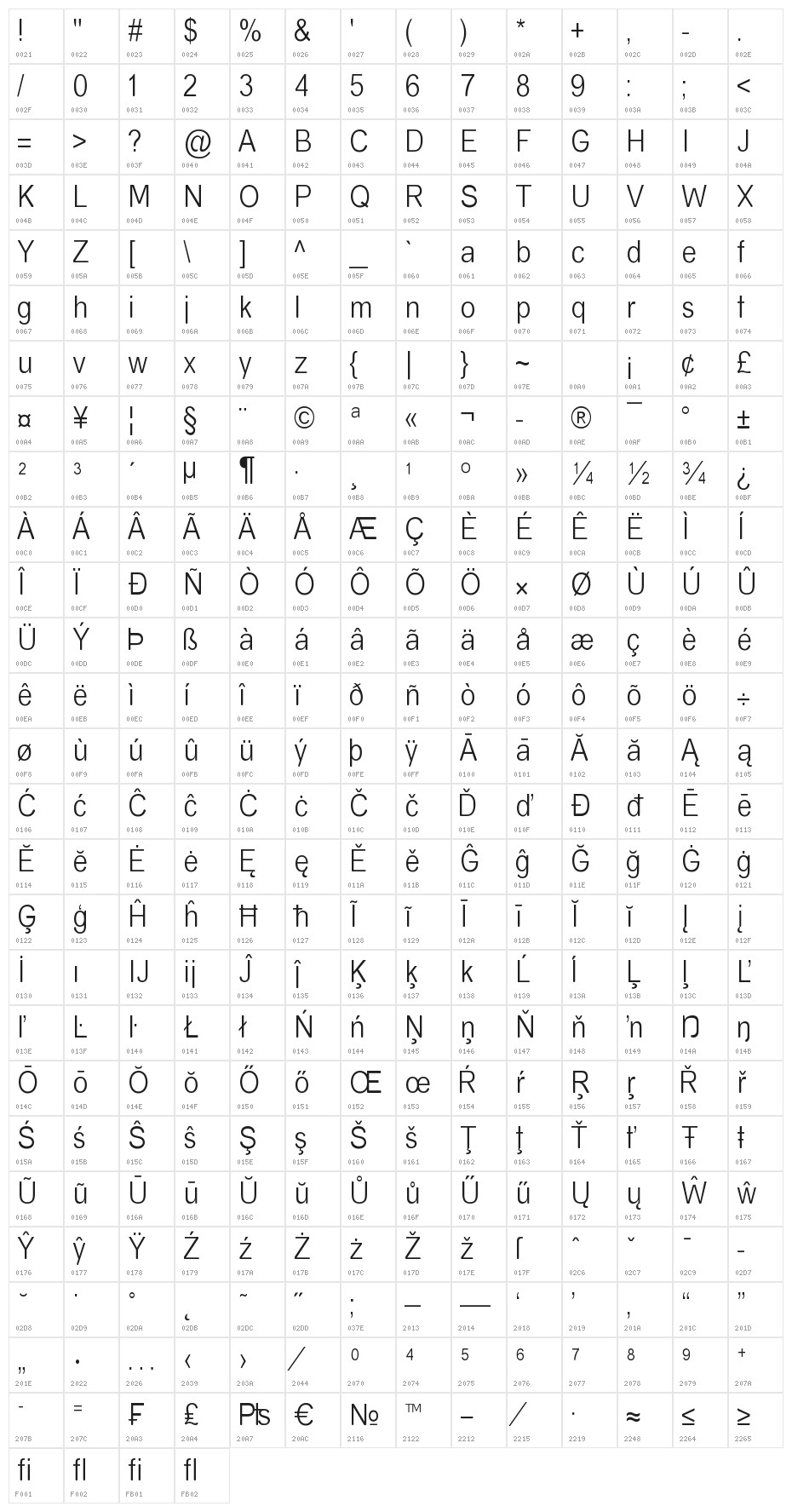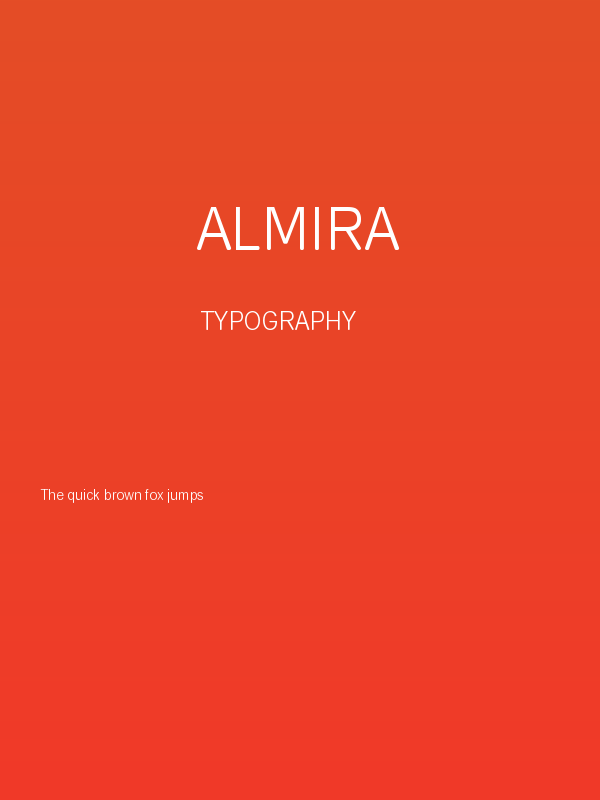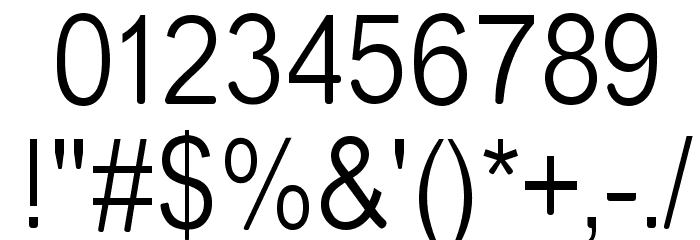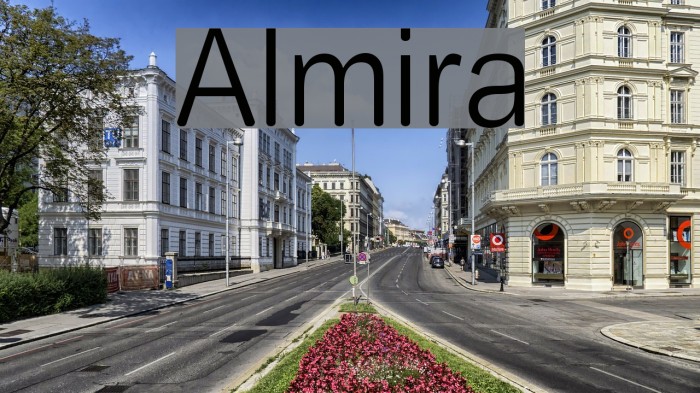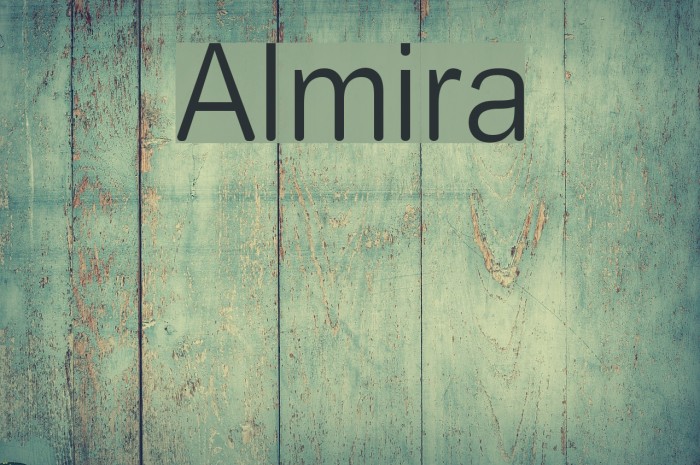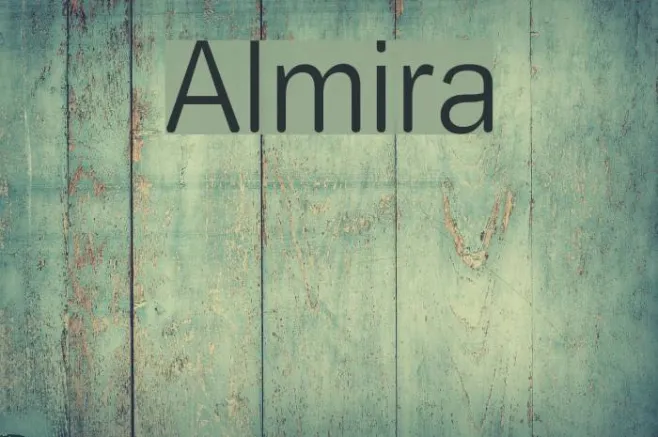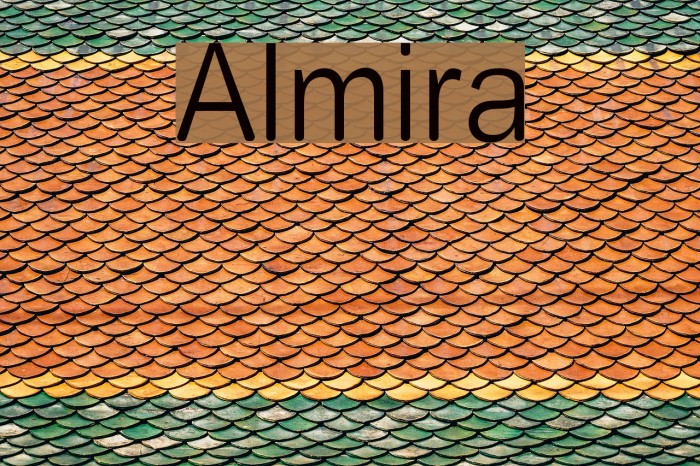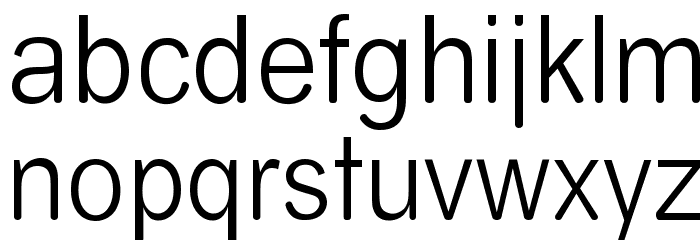
Almira Font
Almira Description
This font features a clean and modern sans-serif design with uniform stroke widths, providing a sleek and professional appearance. The characters are well-proportioned, offering excellent readability across both uppercase and lowercase letters. The numerals are clear and distinct, making them suitable for various applications. Special characters are included, maintaining the font's cohesive style. The overall design is versatile, making it ideal for both digital and print media. Its simplicity and clarity make it a great choice for projects that require a contemporary and minimalist aesthetic.